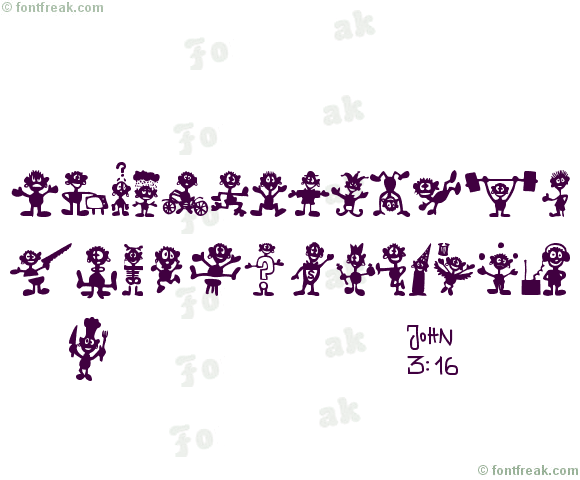
FE-LittleBigMan
About FE-LittleBigMan
FE-LittleBigMan is a unique decorative font from Font Environment that adds a playful touch to any design project. This font falls into the category of display typefaces, characterized by its whimsical and illustrative style. With a bold stroke weight and a lack of contrast, the letters exhibit a solid presence, making them stand out in various applications. The spacing is generous, allowing for easy readability, while the decorative elements evoke a sense of fun and creativity, featuring playful character designs that can enhance any visual narrative.
This font is ideal for a range of specific use cases. It shines in children’s party invitations, where its playful nature resonates with young audiences. Additionally, it can be effectively used in comic book designs, adding character and humor to the storytelling. Restaurant menus aimed at a family-friendly atmosphere can also benefit from the cheerful vibe of FE-LittleBigMan, making the dining experience feel more welcoming. Moreover, this font is suitable for merchandise targeting a youthful demographic, such as T-shirts and stickers, where bold and fun typography can attract attention.
Target audiences for this font include graphic designers looking to inject personality into their projects, small business owners wanting to create a memorable brand identity, and content creators who aim to engage viewers with visually appealing content.
What sets the FE-LittleBigMan font apart is its ability to blend fun and functionality. It effectively captures attention while remaining practical for various applications. For those seeking a vibrant and engaging typeface, the FE-LittleBigMan font free download is an excellent choice, ensuring that your designs are not only eye-catching but also full of character.